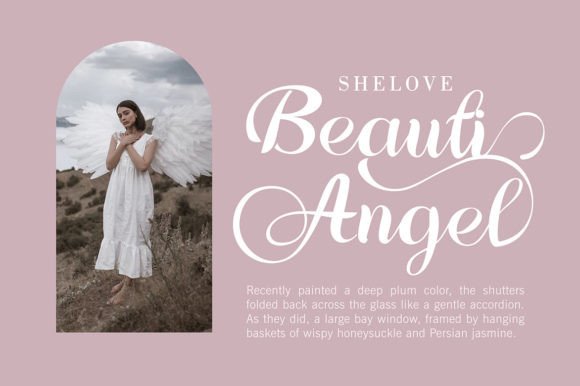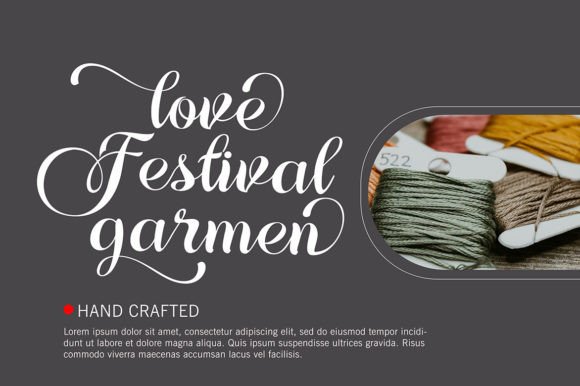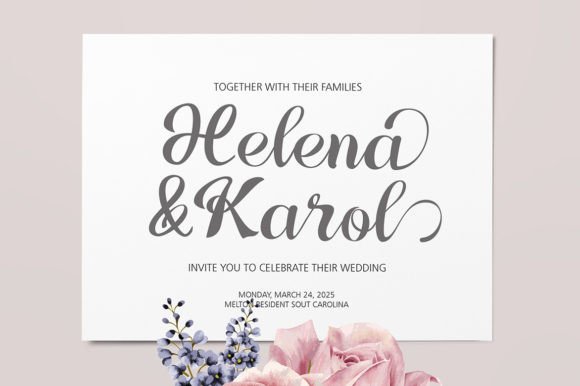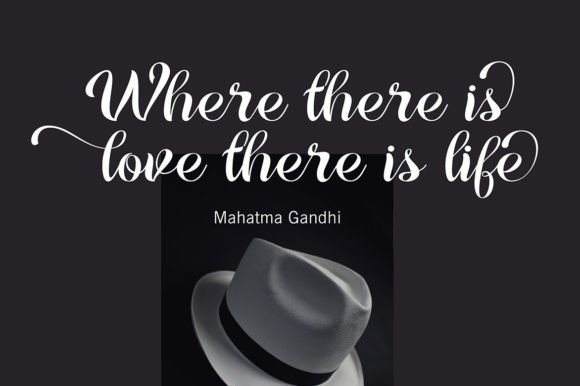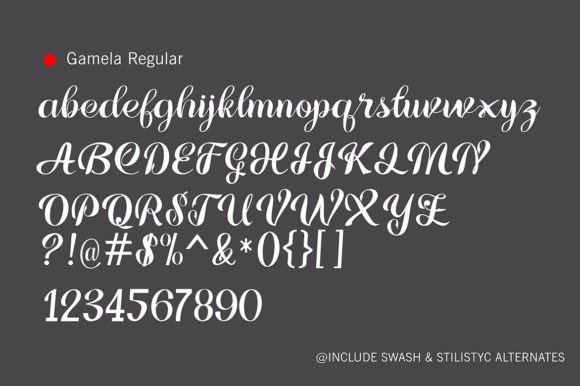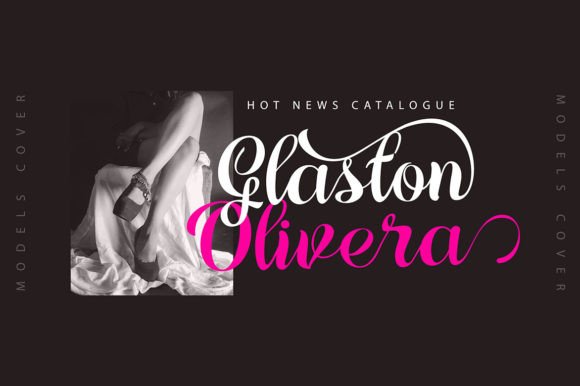
Unlock the Magic of Glamela Font
Have you ever been in the midst of a creative project, pouring your heart and soul into it, only to feel like something’s missing? The words, the design, the overall aesthetic just aren’t coming together? That’s where the perfect font can make all the difference.
Enter the Glamela Font, a modern calligraphy script font that’s about to revolutionize the way you design. With its unique blend of fantasy and handwritten ink, this font is perfect for adding a touch of elegance and sophistication to any project. Whether you’re creating wedding invitations, branding materials, or blog titles, Glamela Font is the perfect choice. And with its PUA encoding, you’ll have access to all the glyphs and swashes you need to make your designs truly special.
Glamela Font Key Features
- Unique Characteristics: Glamela Font boasts a unique blend of elegance and sophistication, featuring intricate details and ornate flourishes.
Glamela Font Review
As a designer, I was excited to dive into the Glamela Font, a trendy and feminine script font that promises to add a touch of elegance to any design project. ✨ Here are my honest thoughts on this font.
- Unique and feminine flair: Glamela Font brings a distinct touch to any design, making it perfect for projects that require a touch of sophistication and glamour.
- High-quality glyphs: The font features well-designed and intricate letterforms that are sure to impress.
- Good legibility: Despite its script nature, Glamela Font is surprisingly easy to read, making it suitable for body text and headings.
- Not ideal for bold text: Due to its script nature, Glamela Font may not be the best choice for bold or oversized text, as it can become difficult to read.
- Limited font sizes: I found that the font performs best at medium to small font sizes, and may not be as effective at larger sizes.
- Not suitable for tech or industrial projects: Glamela Font is best suited for projects with a more creative or artistic tone, as it may not be the best fit for technical or industrial designs.
Glamela Font is a beautiful and elegant script font that can add a touch of glamour to any design project. While it has some limitations, it is a great choice for projects that require a feminine and sophisticated feel. With proper usage, it can be a valuable addition to any designer’s toolkit.
Tips: Use Glamela Font for elegant and sophisticated designs, such as invitations, menus, and branding materials.
Tips: Use Glamela Font for high-end designs, such as business cards, brochures, and magazines.
Tips: Use Glamela Font for presentations, reports, and formal documents.
The Glamela Font is ideal for designs that require elegance, sophistication, and high-end feel. Some common use cases include:
- Business cards and resumes
- Magazines and publications